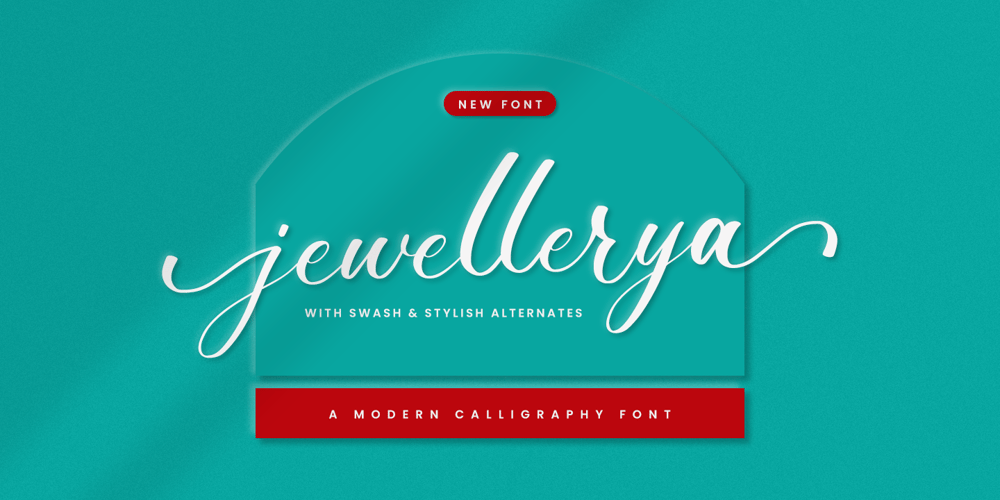
Jewellerya Font Family was designed by Novia Himatunnisa and published by Nissa Nana. Jewellerya contains 1 styles and family package options. Jewellerya is an equally sophisticated and lovely handwritten font that is great for delivering any message with confidence, authenticity, and charm. It will elevate a wide range of crafting ideas, from cards to branding and labels, and so much more.